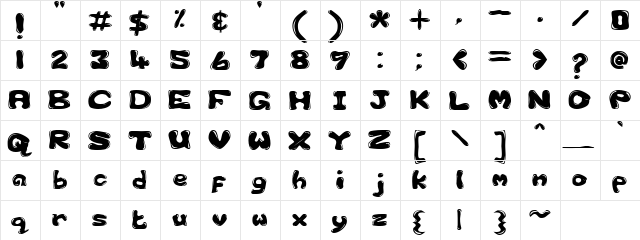
Quib Regular
Design Context for Quib Typeface
Quib is a composed and adaptable typeface that performs quietly and consistently across a wide range of design contexts.